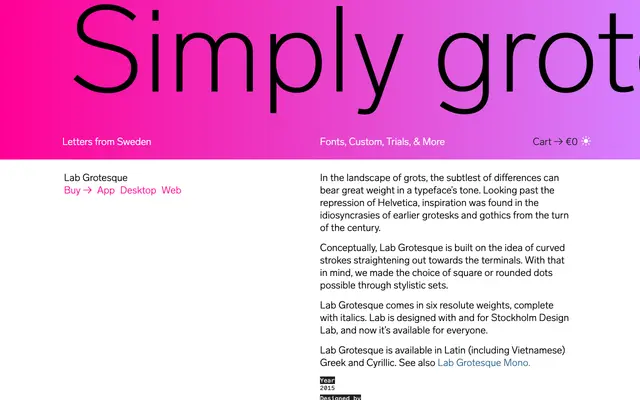
Lab Grotesque
Letters from Sweden · Stockholm Design Lab, Göran Söderström, Panos Haratzopoulos · 2015
Lab Grotesque specimen from Letters from Sweden
A six-weight grotesque designed with Stockholm Design Lab, drawing on turn-of-the-century grotesks rather than the neutrality of Helvetica.
Designed by Göran Söderström with Stockholm Design Lab and released in 2015, it is built around curved strokes that straighten towards the terminals, a detail that gives it quiet character without ornament. Stylistic sets allow switching between square and rounded dots, and the family covers Latin (including Vietnamese), Cyrillic and Greek with Cyrillic consultation from Maria Doreuli. A companion monospaced family, Lab Grotesque Mono, extends the system for code or tabular work.
Explicitly positioned against Helvetica's rigidity in favour of earlier turn-of-the-century grotesks and gothics; curved strokes straightening to terminals is a classic grotesque structural trait.